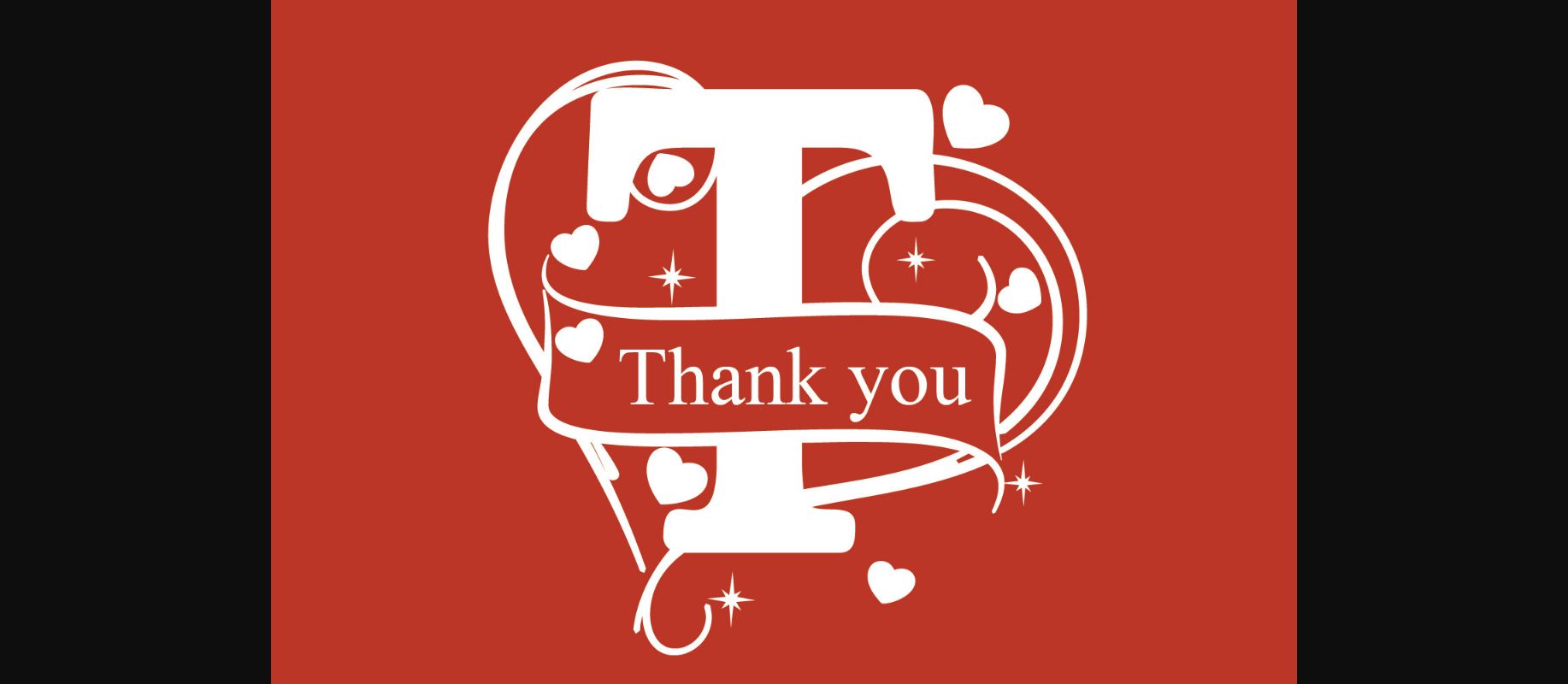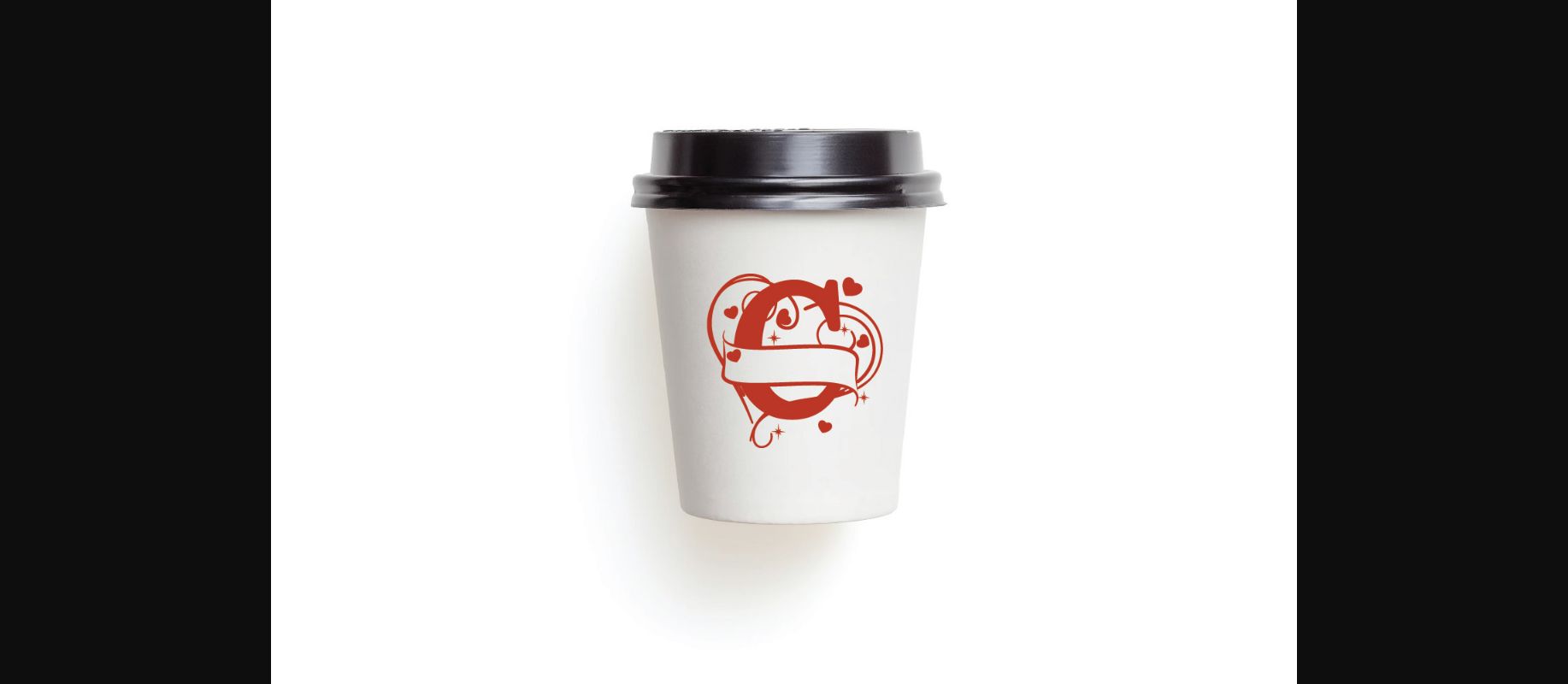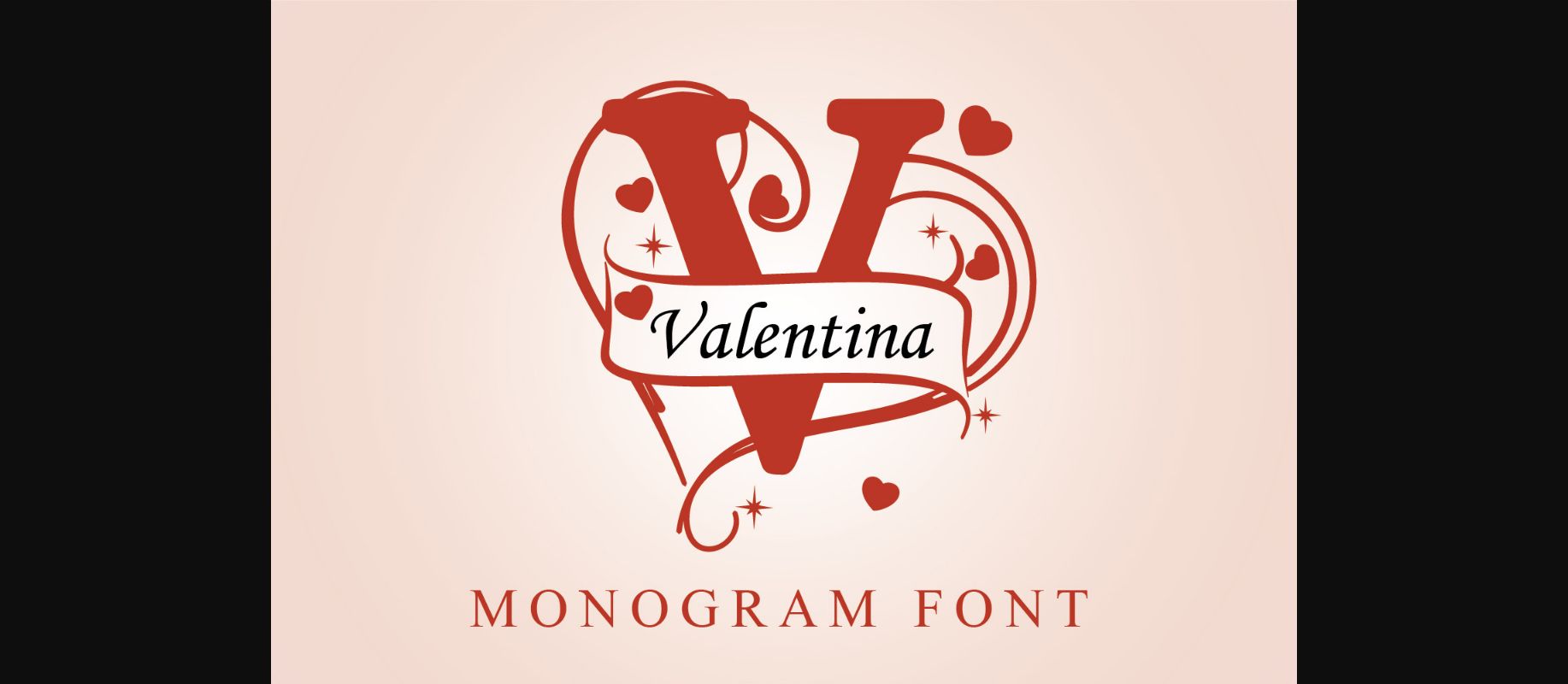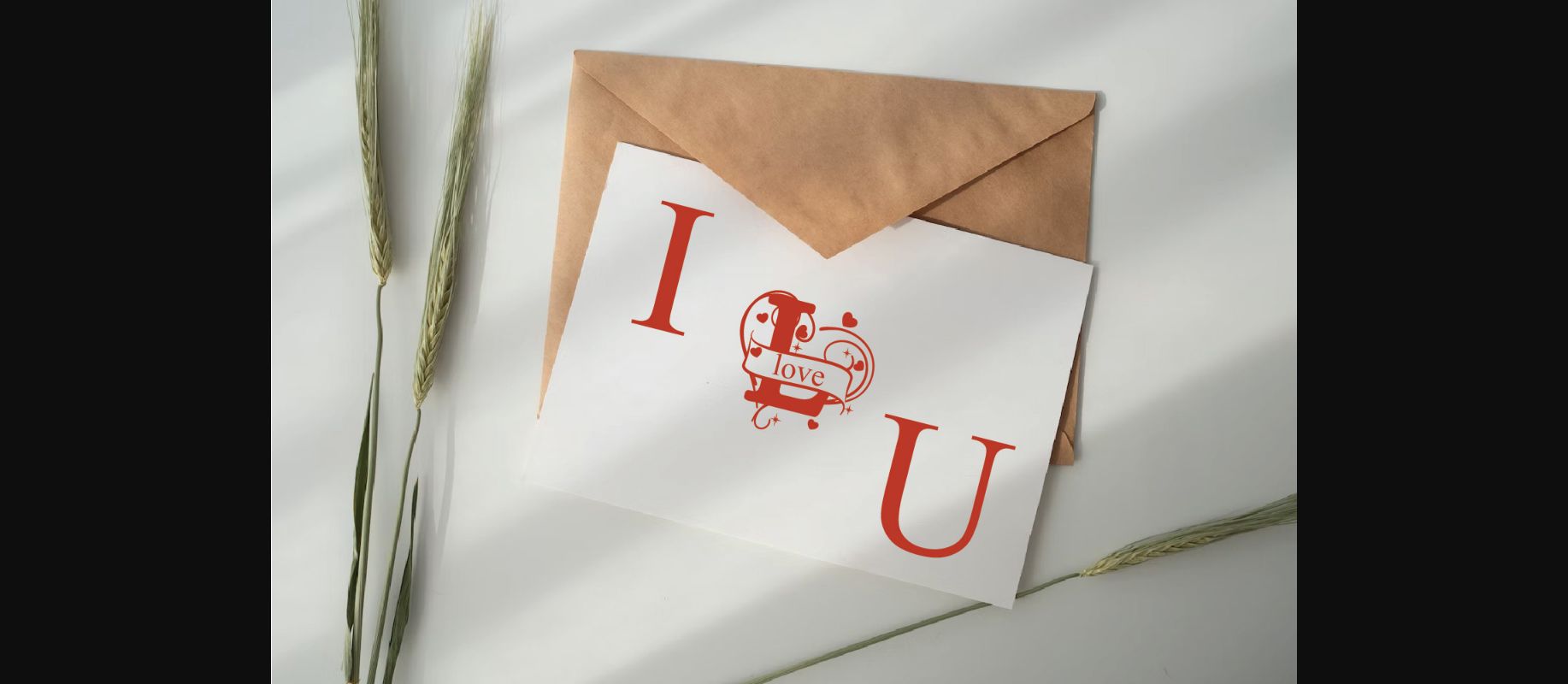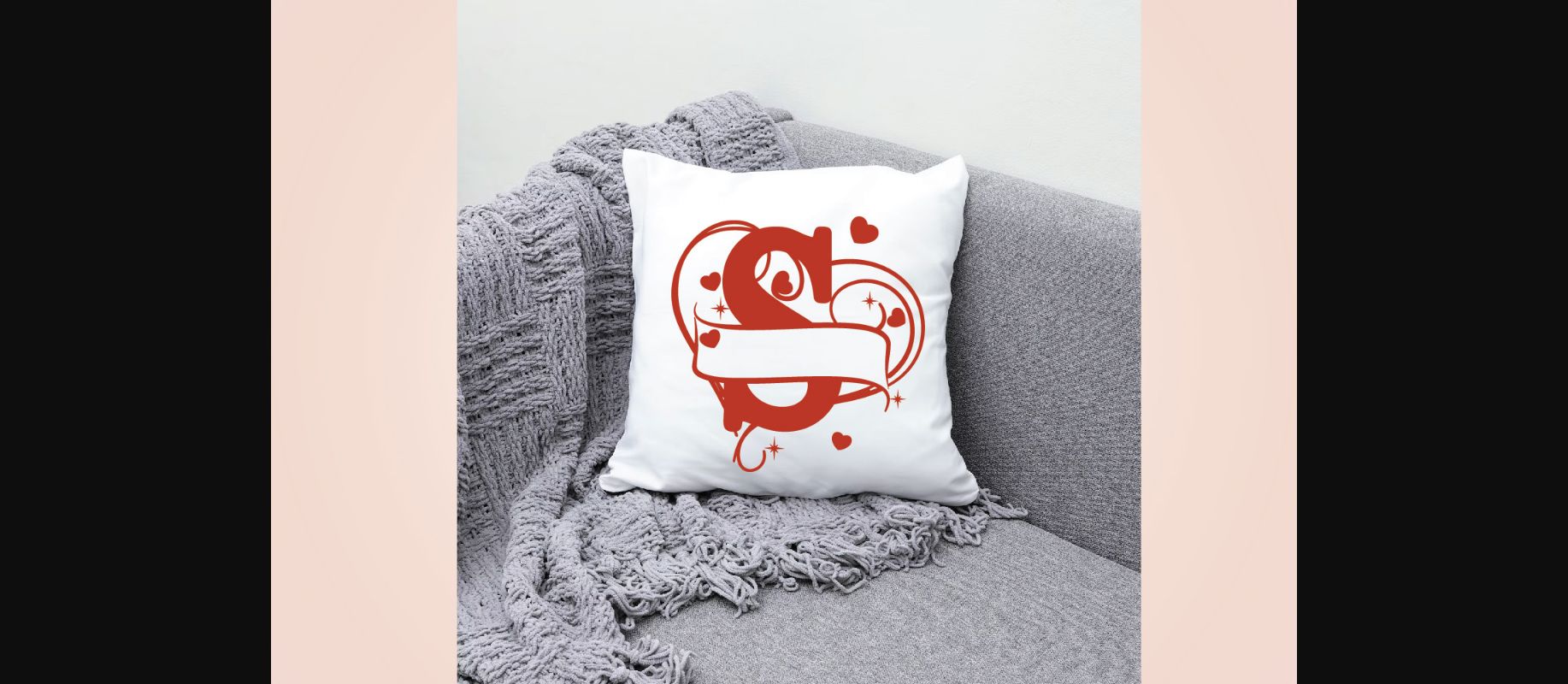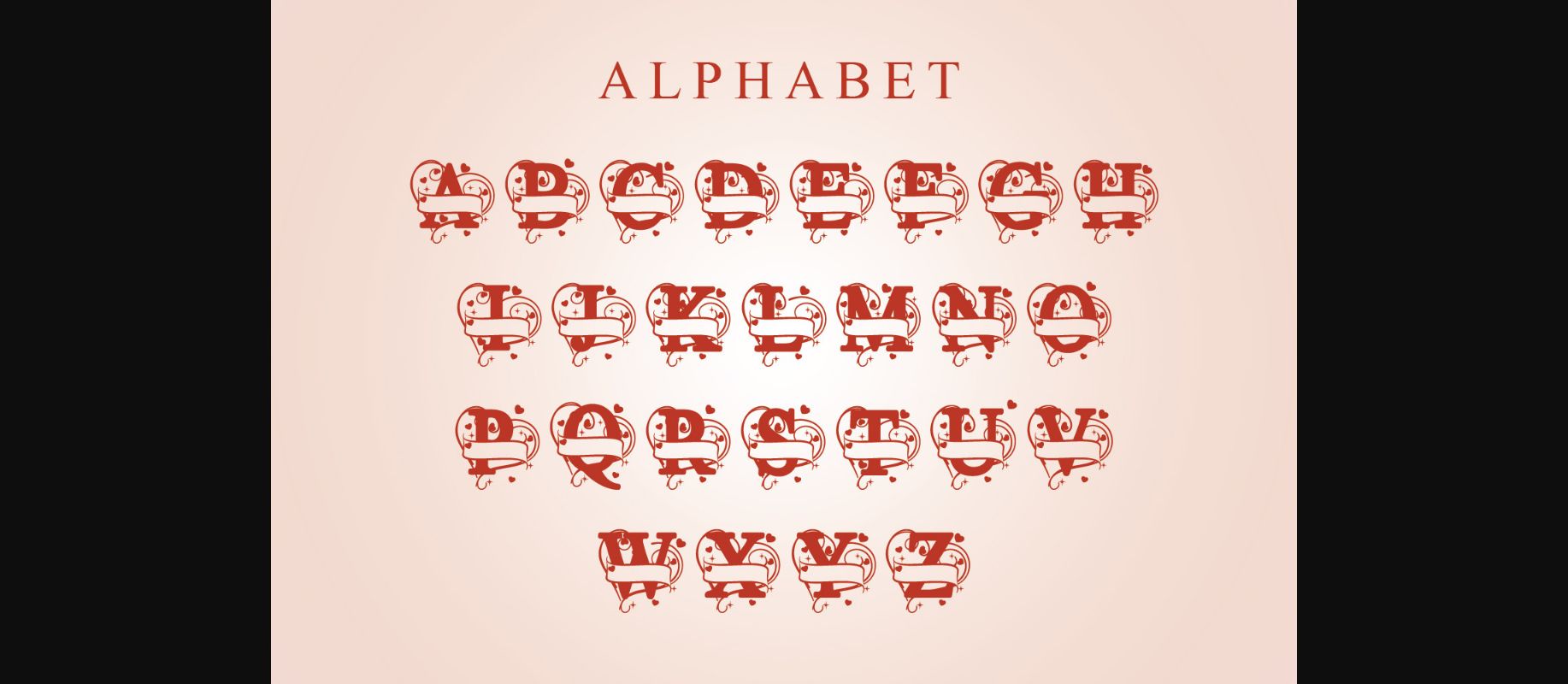
About Valentina Monogram Font
Valentina Monogram is a beautiful valentine’s decorative font. Whether you’re using it for crafts, digital design, presentations, or making greeting cards, this font has the potential to become your favorite, no matter the occasion!